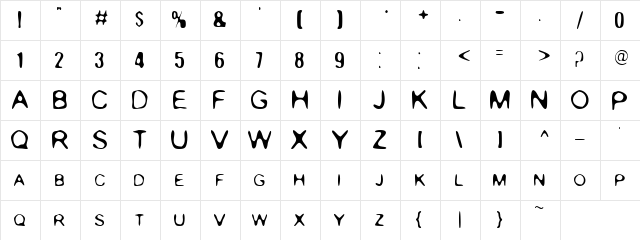
Rounded Genius Regular
Design Context for Rounded Genius Typeface
Rounded Genius uses gentle rounded endings to create a warm, inviting typographic personality — less corporate than geometric sans, more refined than playful display fonts.
Well-suited to UI design, mobile interfaces, and any brand that wants approachability without sacrificing clarity.
Font Pairing: Pairs well with a rounded or humanist sans for body copy, maintaining the friendly tone without relying on Rounded Genius to carry extended reading.
Pro Tip: Use Rounded Genius for UI elements, app interfaces, and anywhere a friendly, approachable tone needs to be maintained without sacrificing clarity.